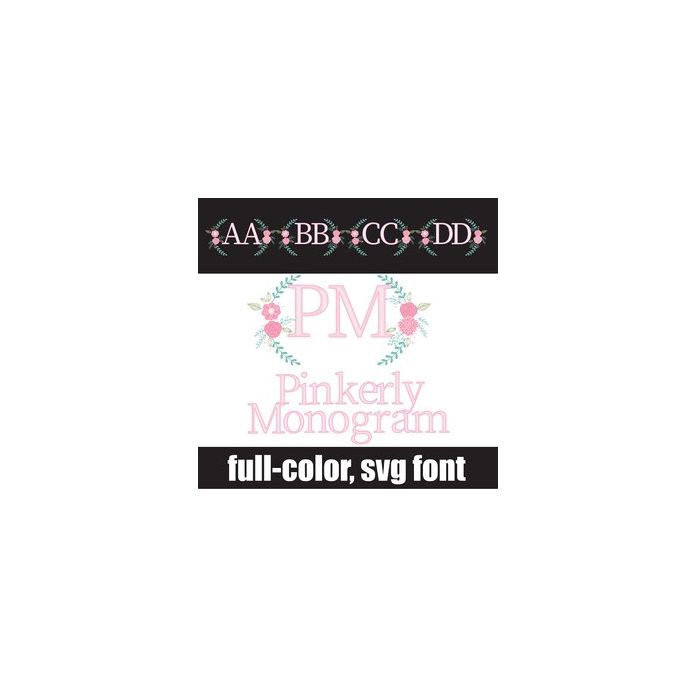
This pretty font is a monogram font. Type the left side of the monogram with an uppercase and the right side of the monogram with the lowercase. For example "Pm" was typed. There is a non-floral uppercase and lowercase available on your system or Silhouette's character map.